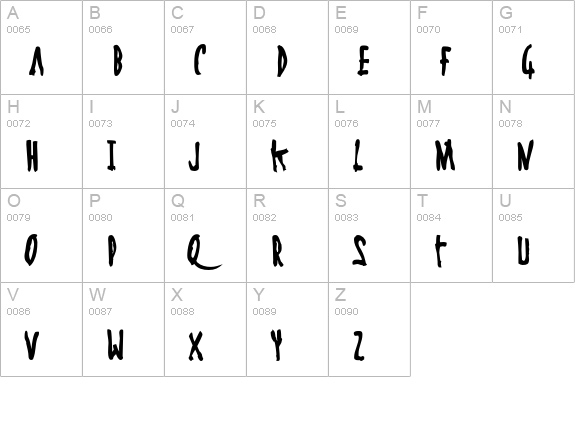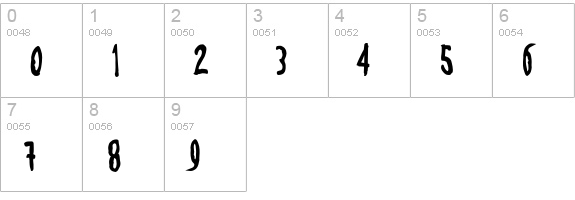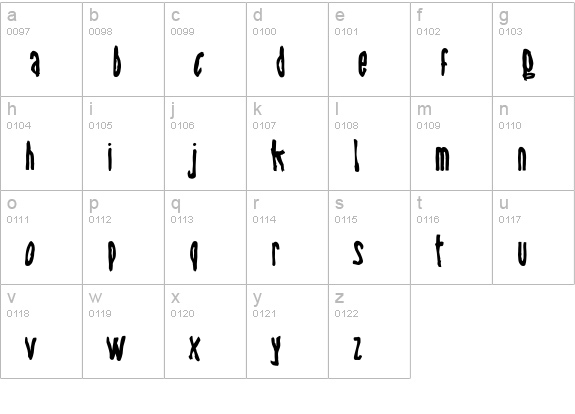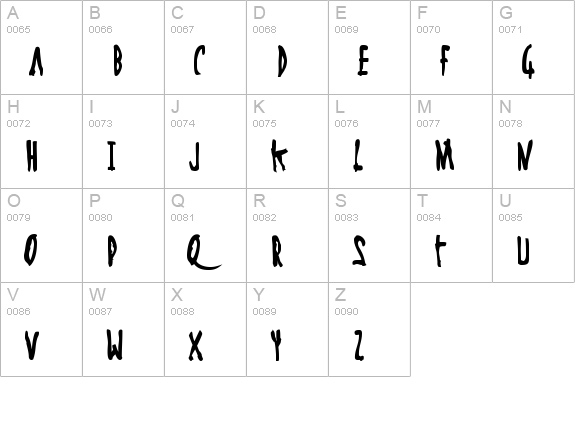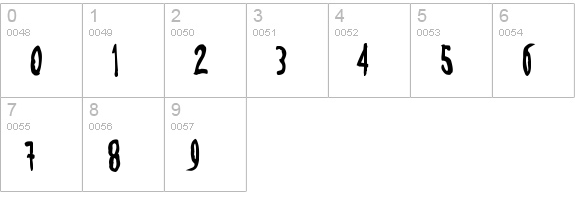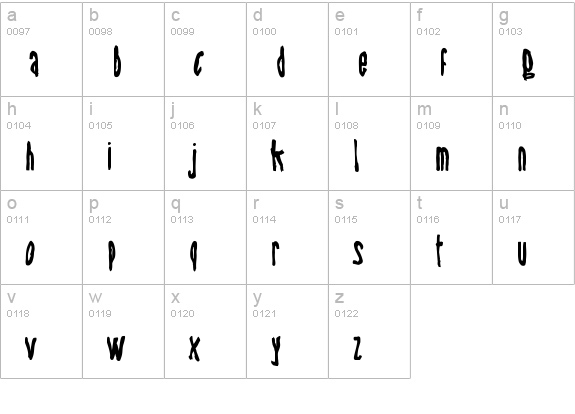
Steel-StringBold is a captivating and robust font that effortlessly combines strength with elegance. With its bold and assertive letterforms, this typeface exudes confidence and commands attention. The sturdy strokes and sharp angles of Steel-StringBold make it the perfect choice for projects that require a powerful and impactful visual presence. This font is designed with meticulous attention to detail, ensuring each character maintains its integrity and legibility even at larger sizes. The carefully crafted curves and precise spacing create a harmonious balance that enhances readability and overall cohesion in any design. Steel-StringBold is versatile and adaptable, making it suitable for a wide range of applications. Whether used in headlines, logos, posters, or branding materials, this font effortlessly conveys a sense of strength and reliability. It adds a touch of sophistication to any project and elevates the overall aesthetic with its bold and commanding presence. One of the most appealing aspects of Steel-StringBold is that it is free to download at FontsMarket.com. This means that designers and creatives have the opportunity to access and utilize this exceptional font without any constraints. By making it freely available, Steel-StringBold empowers artists to bring their visions to life without compromising on quality or style. In conclusion, Steel-StringBold is a remarkable font that aims to leave a lasting impression. Its bold and strong character, combined with its elegant and refined details, make it a perfect choice for projects that demand attention and impact. With its availability as a free download at FontsMarket.com, Steel-StringBold offers a unique opportunity for designers to enhance their creations with a font that exudes power and sophistication.